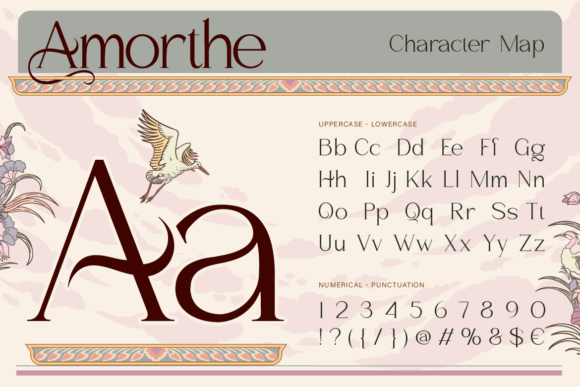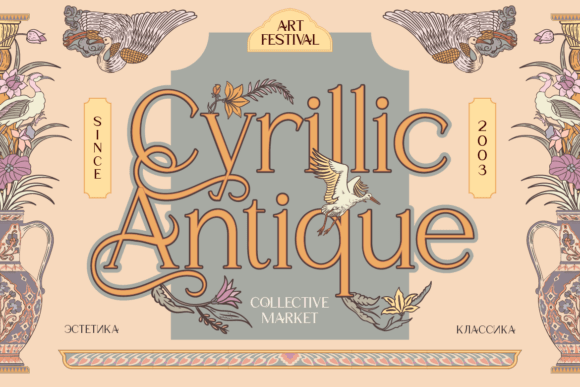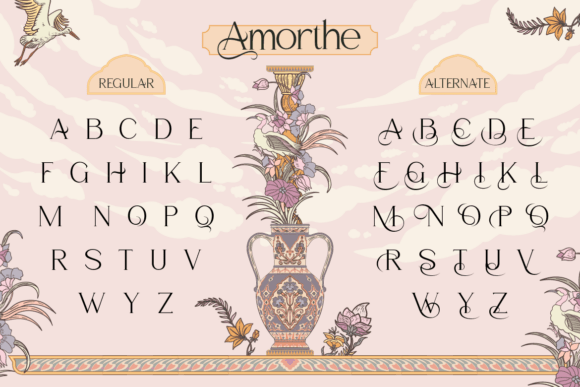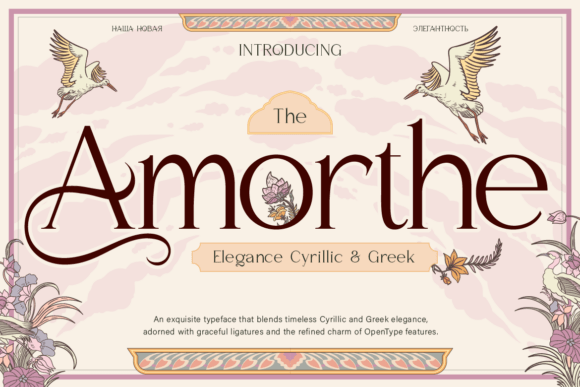
Introduction to Amorthe Regular Font
Amorthe is where timeless elegance meets modern versatilityβ€”a typeface that speaks with sophistication and charm across languages, including Cyrillic, Greek, and more.
Its refined serifs are brought to life with playful alternates that add a whisper of personality to every letterform With nine carefully crafted weights, from whisper-thin grace to bold confidence, Amorthe adapts seamlessly to everything from headlines to body text.
Key Features of Amorthe Regular Font